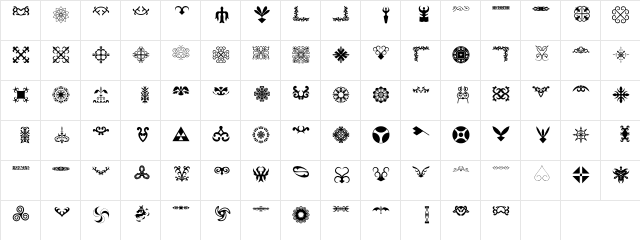
GerC Regular
Design Context for GerC Typeface
GerC is a composed and adaptable typeface that performs quietly and consistently across a wide range of design contexts.
Pro Tip: Pair GerC with a font of contrasting weight or personality to build a more expressive typographic hierarchy.